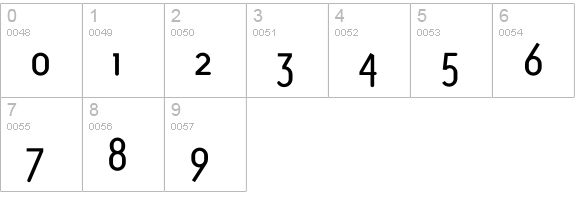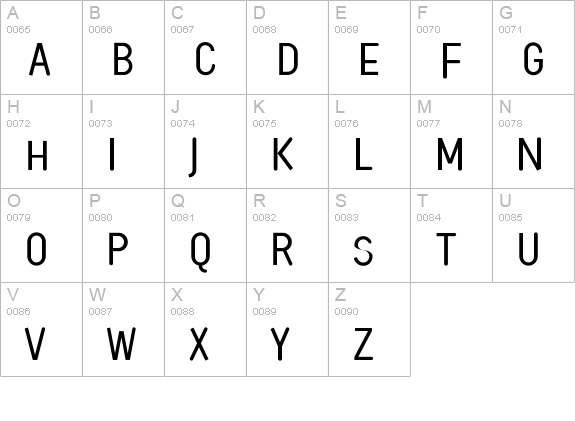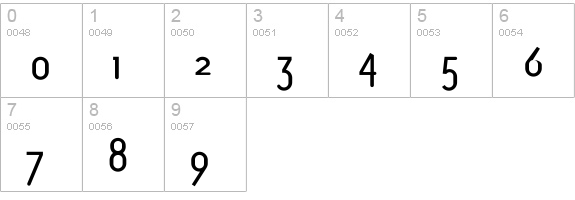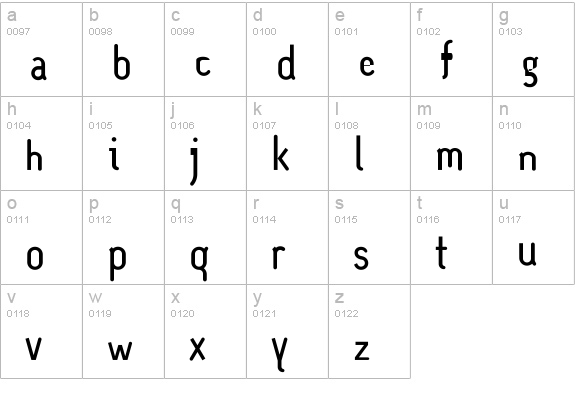
Monolein-inbetween Font Details
Monolein-inbetween font is a unique and versatile typeface that strikes the perfect balance between modernity and elegance. Its sleek and geometric design makes it ideal for a wide range of design projects, from branding to editorial design. The Monolein-inbetween font features a clean and minimalist aesthetic with a touch of sophistication, making it a versatile choice for both digital and print applications. What sets Monolein-inbetween font apart is its ability to convey a sense of contemporary style while maintaining readability and clarity. The clean lines and balanced proportions of this font make it perfect for creating eye-catching headlines, stylish logos, and sophisticated typography in any project. And the best part? Monolein-inbetween font is completely free to download at FontsMarket.com! So whether you're a professional designer looking for a new go-to typeface or a hobbyist experimenting with different fonts, Monolein-inbetween font is a must-have addition to your font library. Download it today and elevate your design projects with this stunning and versatile typeface.